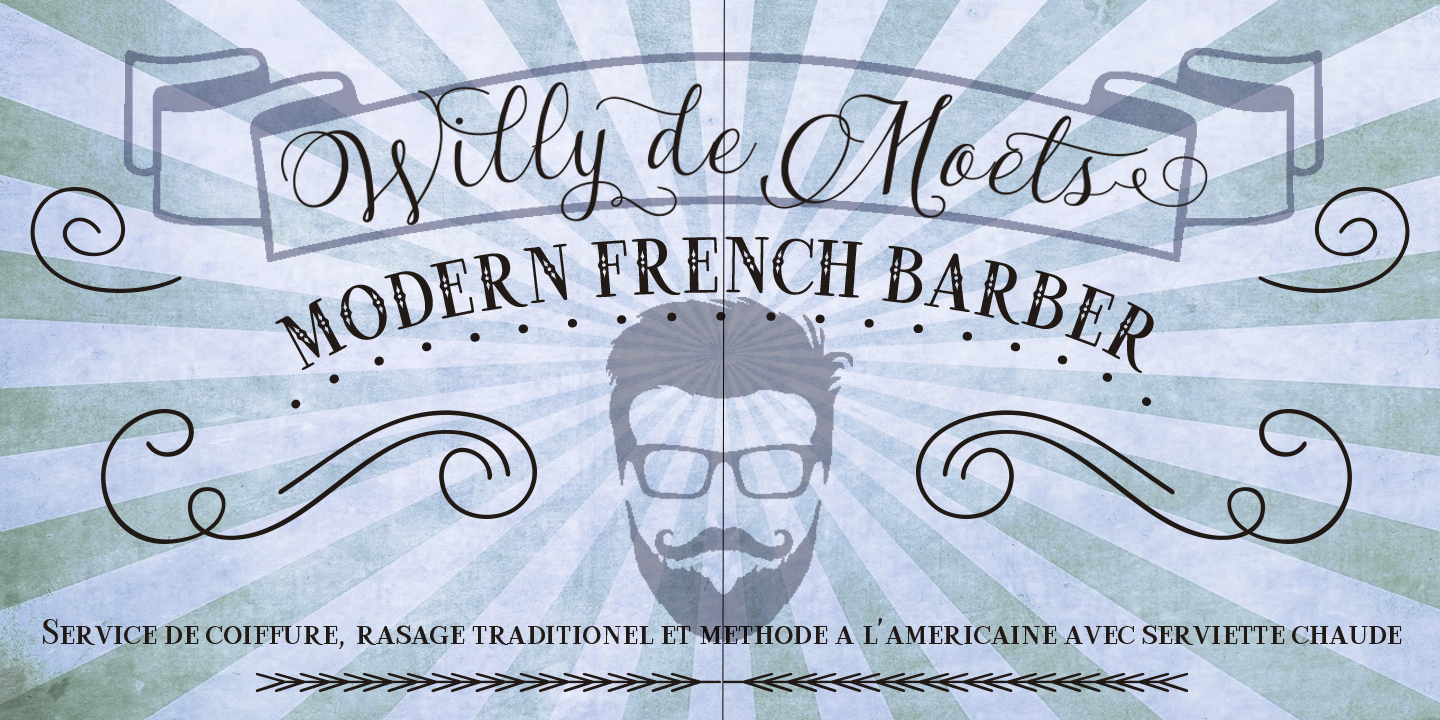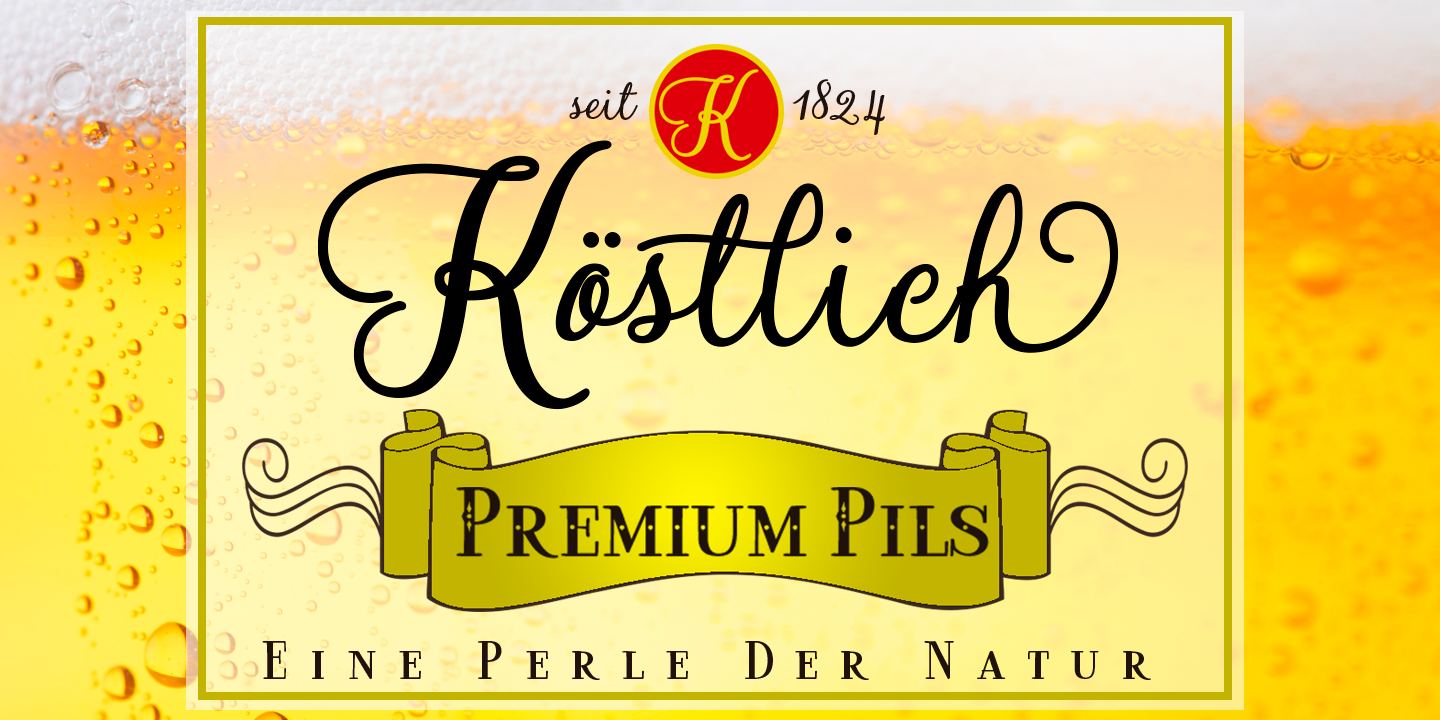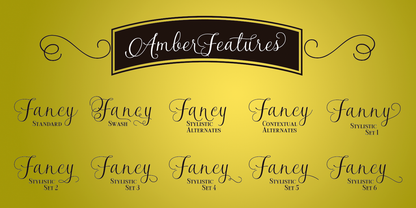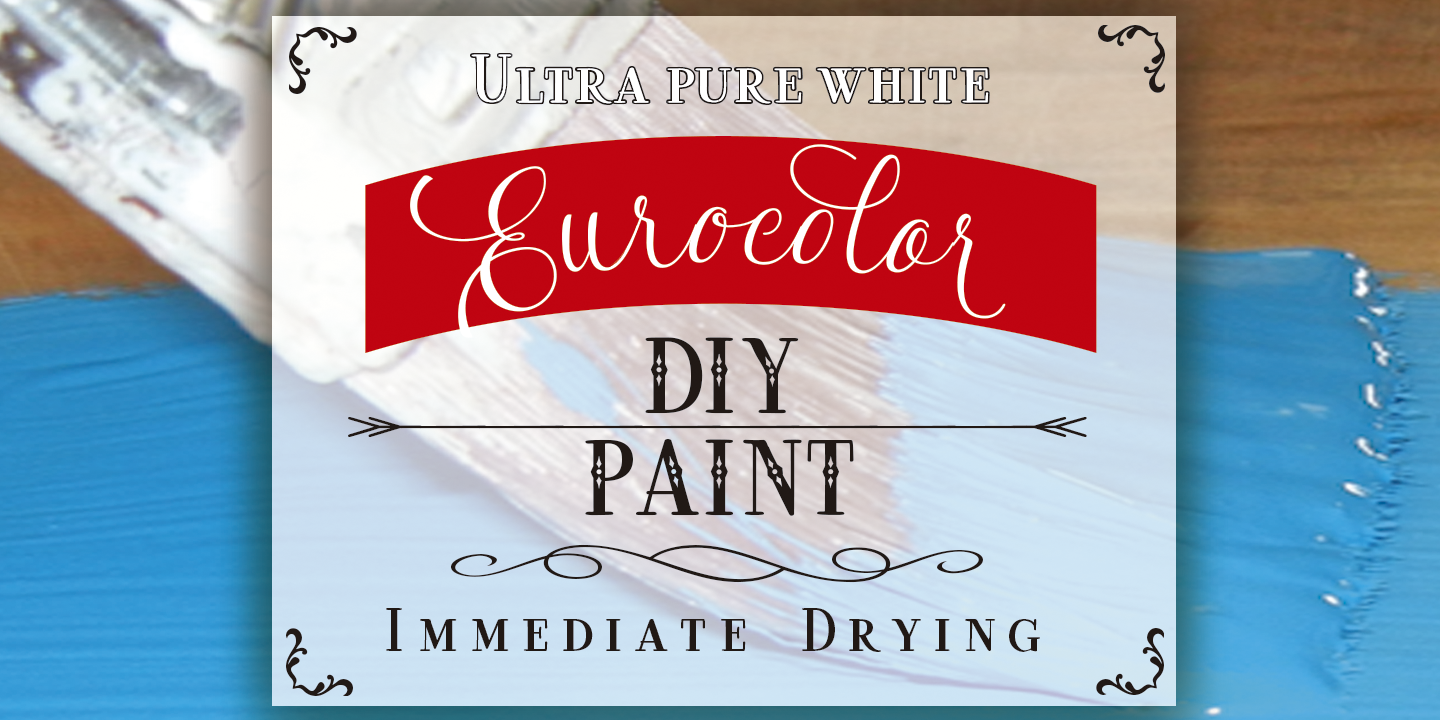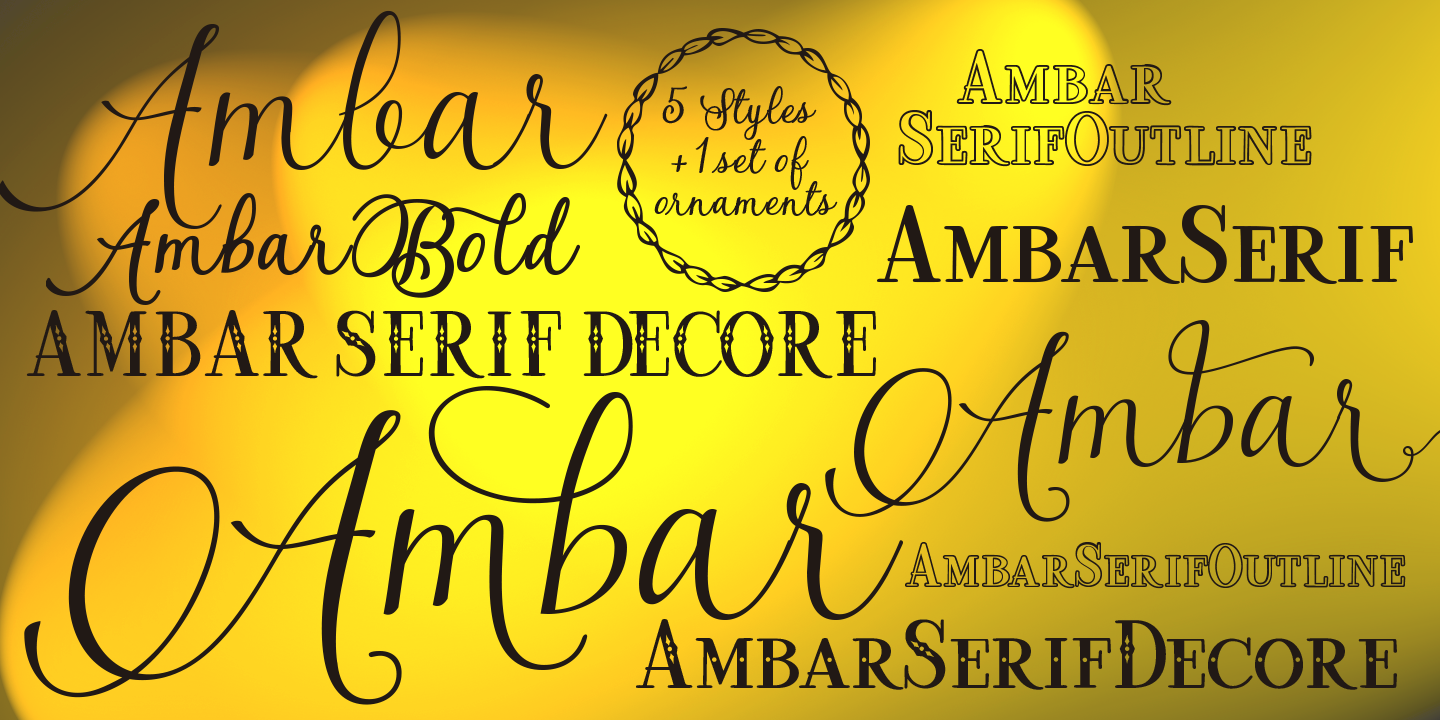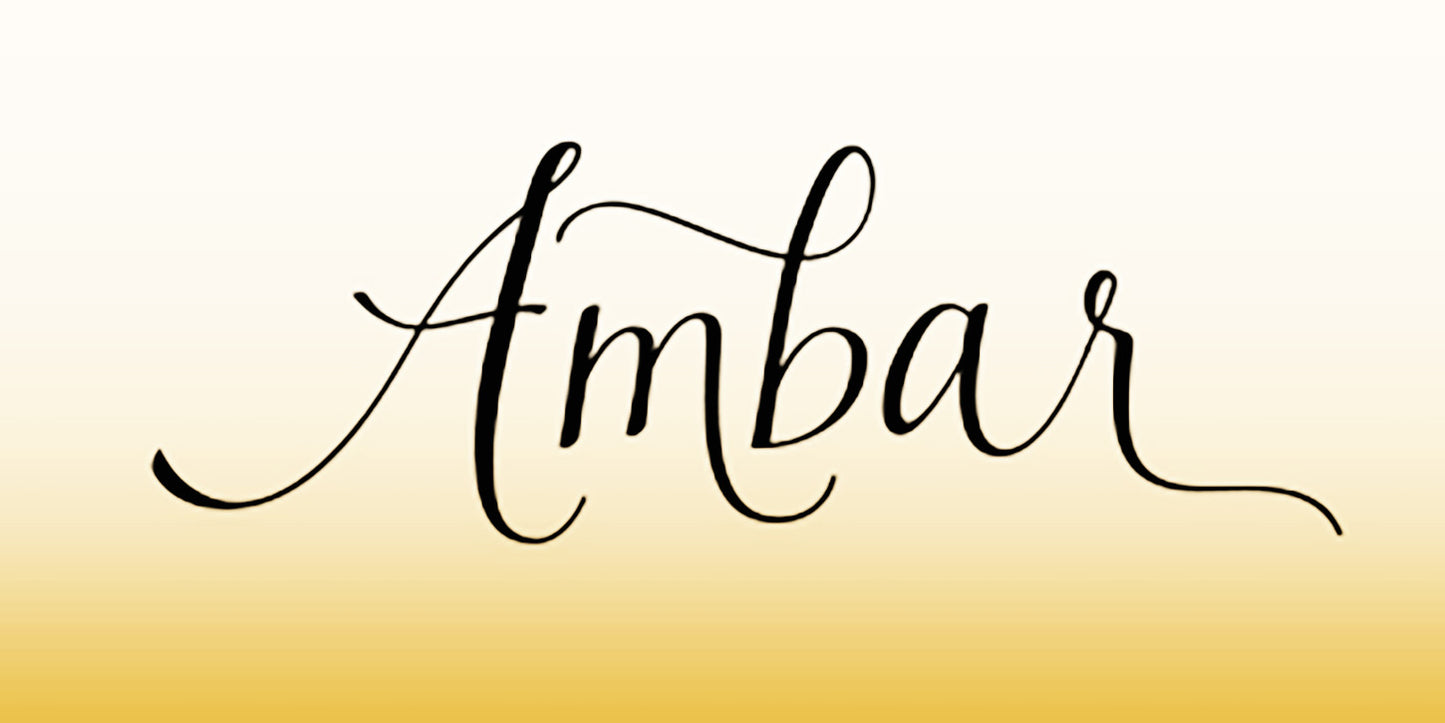
Ambar
An Elegant & Decorative Typeface
Ambar is a decorative and elegant typeface designed to elevate your artwork. Its refined lines and artistic flair make it a standout choice for designers looking to add a touch of sophistication and visual interest to their compositions.
642 Glyphs & Infinite Combinations
This font contains 642 glyphs, including OpenType variants that offer a world of creative possibilities (accessible via OpenType-aware applications). Ambar offers a wealth of ligatures, contextual alternates, swashes, stylistic sets, stylistic alternates, and lots of ornaments. This rich character set allows you to mix and match pairs of letters and signs, giving you the freedom to customize every word to fit your design perfectly.
Perfect for Greeting Cards & Branding
This flexibility helps your creativity flow, making it easier to create attractive and elegant artwork. Ambar is the perfect choice for designing greeting cards, posters, labels, logos, and more. Wherever you need a unique, handcrafted decorative touch, Ambar delivers.